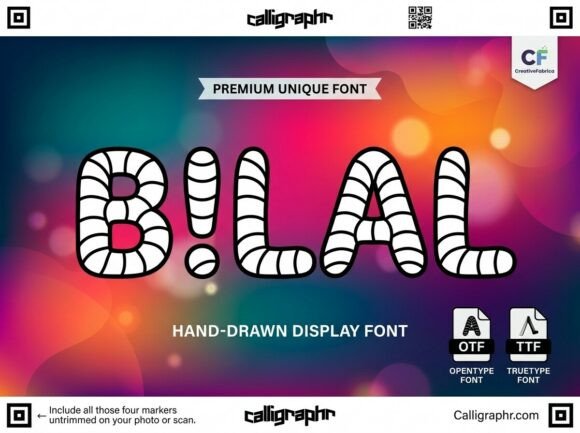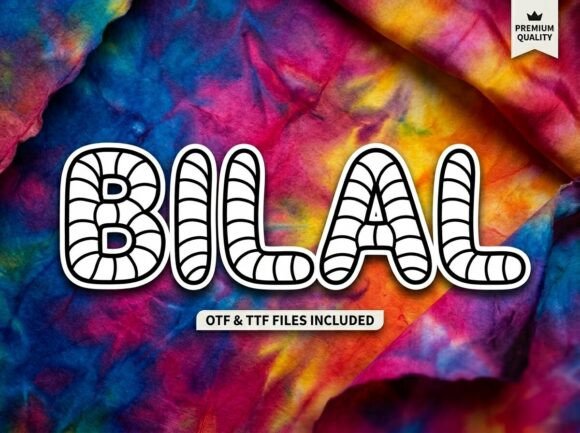
Unleash Your Creativity with Bilal Font: The Playful Display Typeface
Are you a designer, craftsperson, or simply a creative enthusiast looking for a unique and captivating font to bring your projects to life? Look no further than Bilal Font, a playful display typeface that embodies a “bubbly-and-biological” soul. With its distinctive thick, rounded letterforms and rhythmic, hand-drawn “segmented” internal lines, Bilal Font is the perfect choice for a wide range of creative applications.
The Inspiration Behind Bilal Font
Bilal Font is a masterful blend of whimsy and modernity, drawing inspiration from the carefree world of cartoon caterpillars and the bold, vibrant aesthetic of modern pop-art branding. The font’s creator aimed to craft a typeface that would evoke a sense of playfulness and friendliness, making it an ideal fit for projects targeting children, families, or anyone seeking a lighthearted and engaging visual identity.
Key Features of Bilal Font
So, what sets Bilal Font apart from other display typefaces? Here are some of its key features:
- Thick, rounded letterforms: Bilal Font boasts sturdy, rounded letterforms that exude a sense of friendliness and approachability.
- Rhythmic, hand-drawn “segmented” internal lines: The font’s unique internal lines add a touch of whimsy and visual interest, creating a sense of movement and energy.
- Heavy structural weight: Bilal Font’s robust design ensures that it stands out in any context, making it perfect for headlines, titles, and other high-impact applications.
- Quirky and colorful personality: Bilal Font is designed to bring a smile to your face, making it an excellent choice for projects that require a dash of playfulness and creativity.
Perfect Applications for Bilal Font
Bilal Font’s versatility and charm make it suitable for a wide range of creative projects, including:
- Independent children’s toy packaging: Add a touch of magic to your toy packaging with Bilal Font’s playful and engaging design.
- Boutique candy shop identities: Create a sweet and inviting brand identity for your candy shop with Bilal Font’s whimsical charm.
- Creative classroom materials: Make learning fun with Bilal Font’s friendly and approachable design, perfect for educational materials and worksheets.
- High-impact social media headers: Stand out on social media with Bilal Font’s bold and eye-catching design, ideal for quirky and colorful headers.
Why Choose Bilal Font?
With so many fonts available, why choose Bilal Font for your next project? Here are just a few compelling reasons:
- Unique and memorable design: Bilal Font’s distinctive design ensures that your project will stand out from the crowd.
- Flexibility and versatility: Bilal Font can be used in a variety of contexts, from packaging and branding to educational materials and social media.
- Ease of use: Bilal Font is designed to be easy to read and use, making it perfect for designers and non-designers alike.
In conclusion, Bilal Font is a one-of-a-kind display typeface that offers a refreshing blend of playfulness, creativity, and friendliness. With its unique features, versatility, and charm, Bilal Font is the perfect choice for designers, craftspersons, and creative enthusiasts looking to add a touch of whimsy and imagination to their projects. So why wait? Spin a web of creativity with Bilal Font and bring your ideas to life!